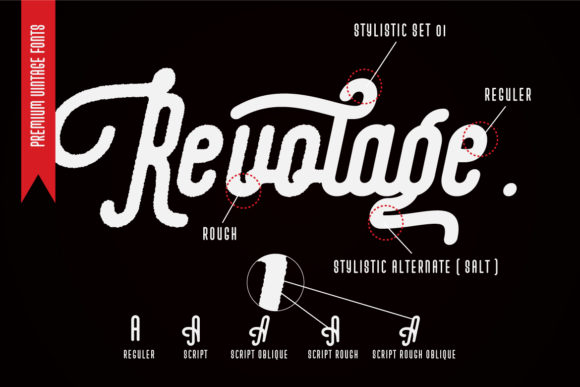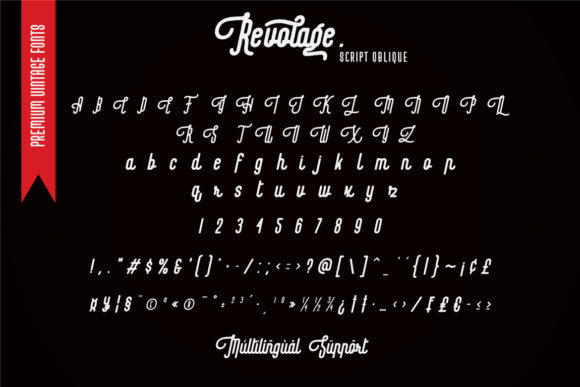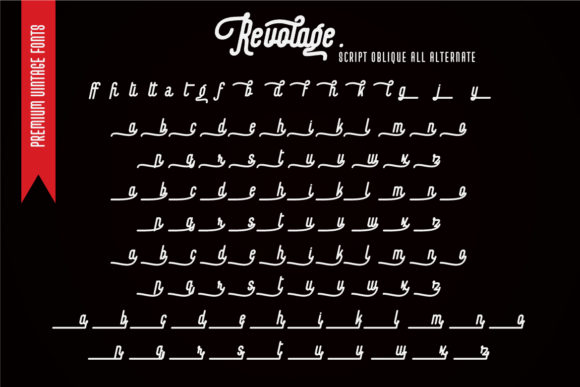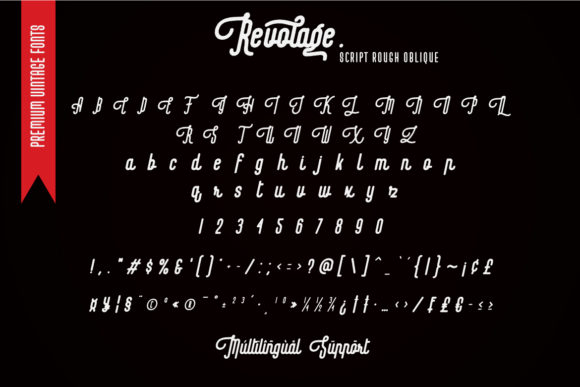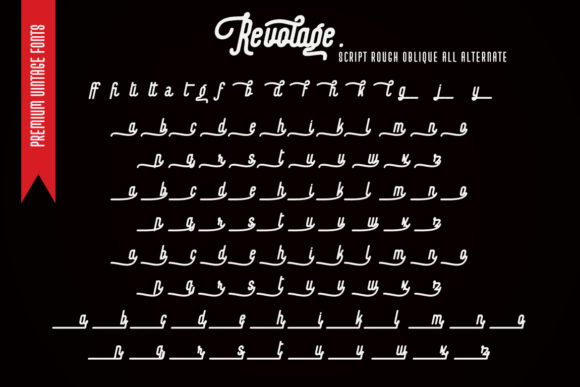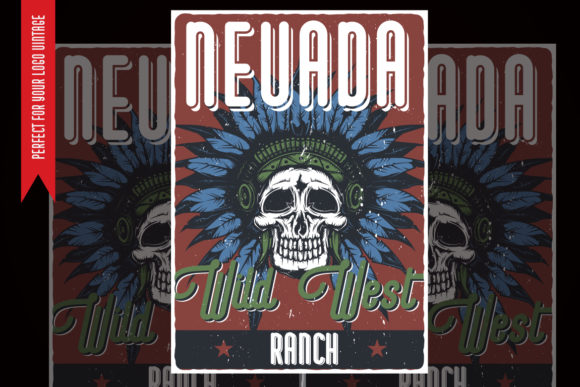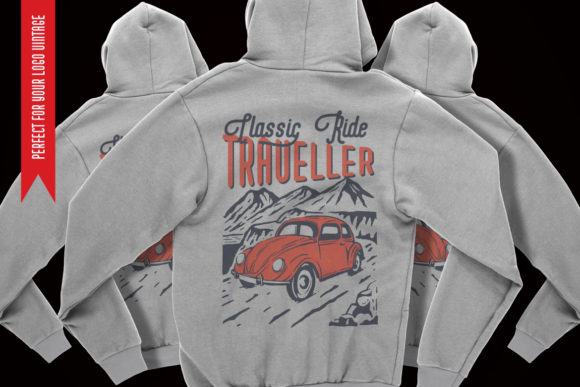
Revolage Font
About Revolage Font
Revolage is an incredibly unique handwritten font. Fall in love with its incredibly versatile style and use it to create spectacular designs!